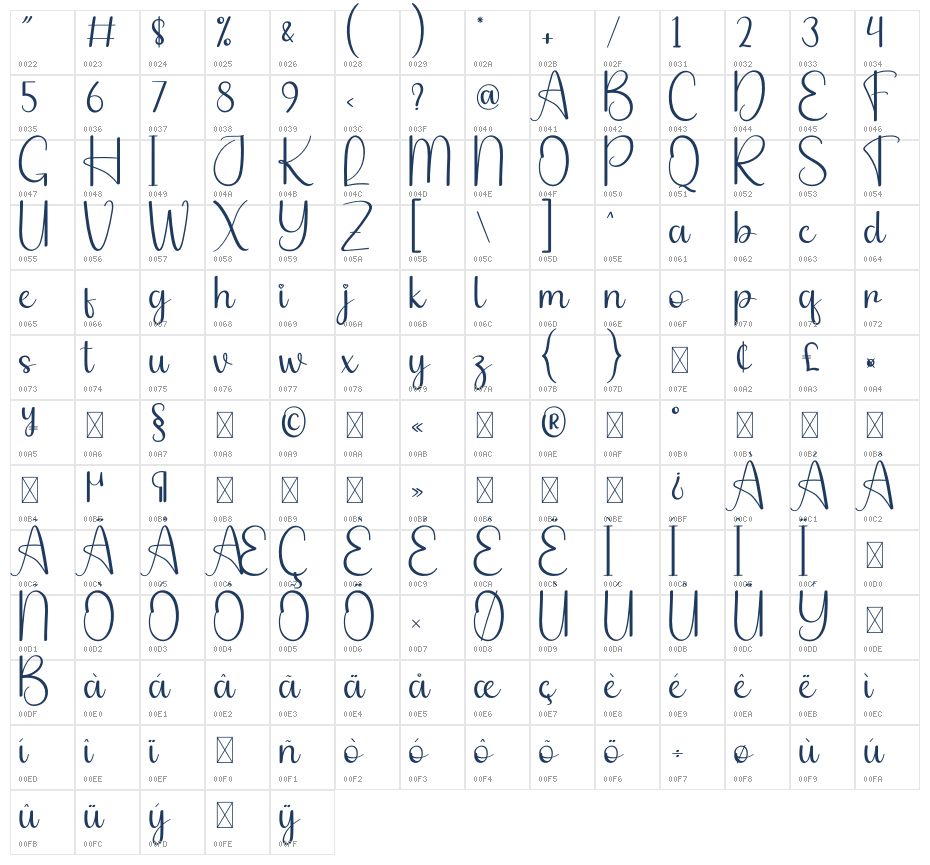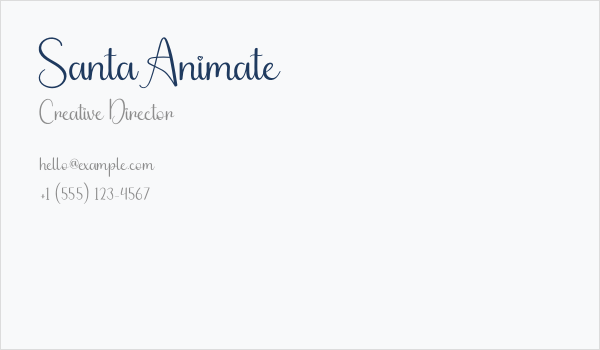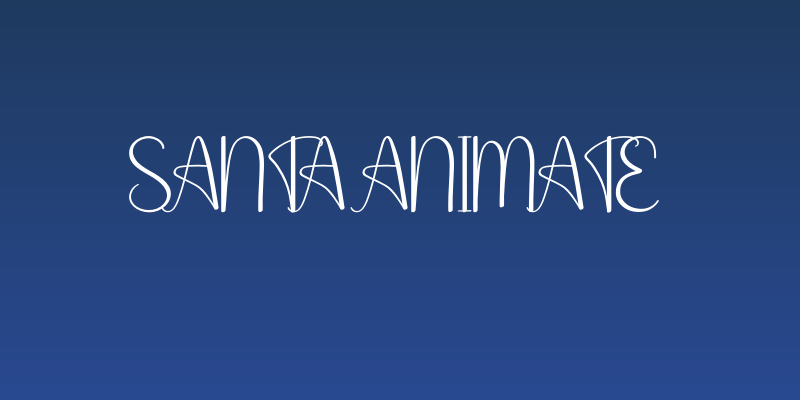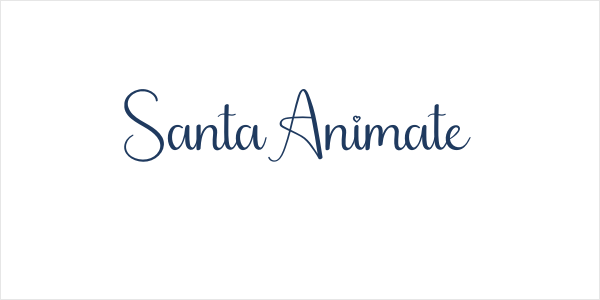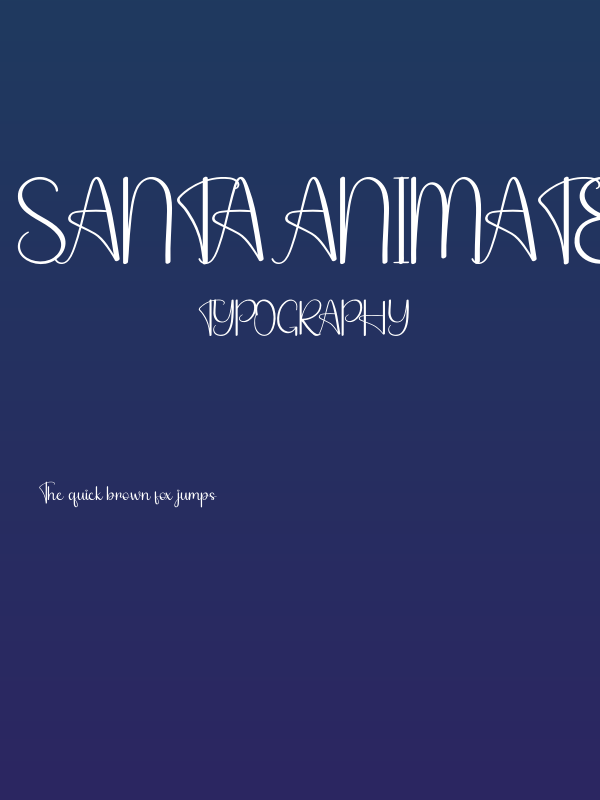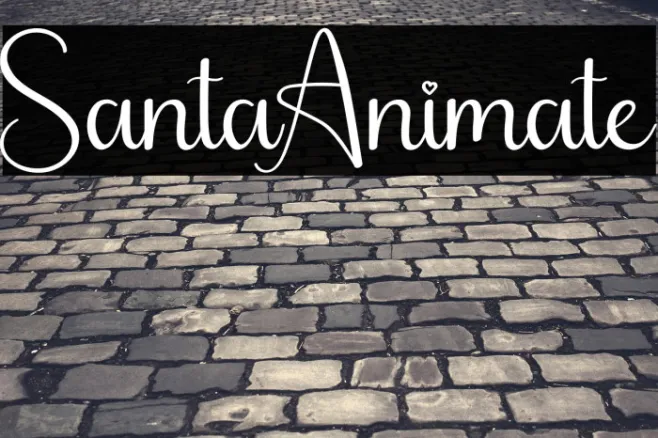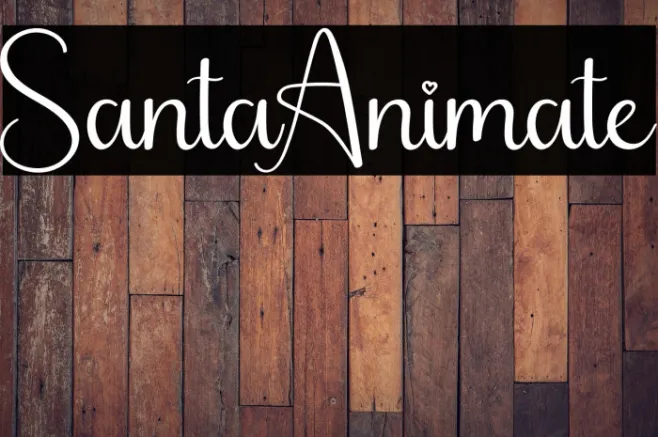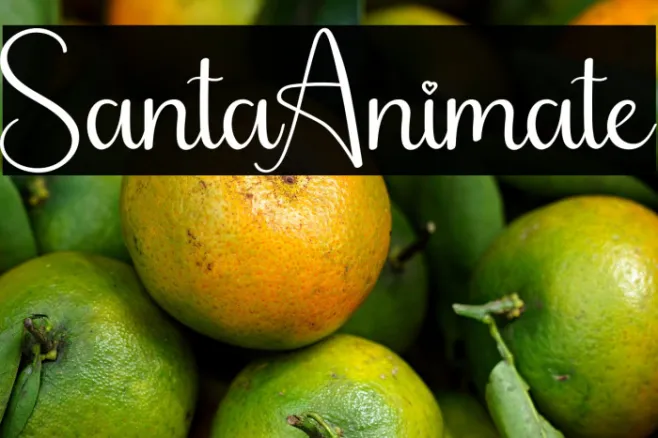
Santa Animate Font
Santa Animate Description
A playful, handwritten script font with a casual and whimsical style, featuring smooth curves and a slightly irregular stroke width.
| Overall Style | Casual, Playful, Handwritten |
| Use Case | Greeting cards, Invitations, Branding, Social media graphics, Personal projects |